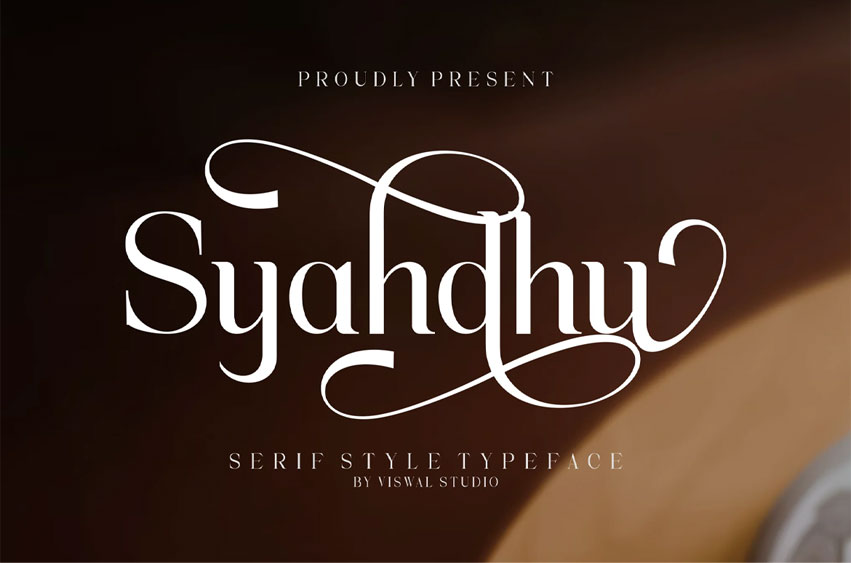
Syahdhu Font
Syahdhu Font Is A Modern Elegant Serif Font. Can Make It Easier To Convey The Message In Your Design. Font Is Suitable For Logo, Labels, Badge, Branding, Magazine, Poster, Title, Gigs, Covers And Etc.